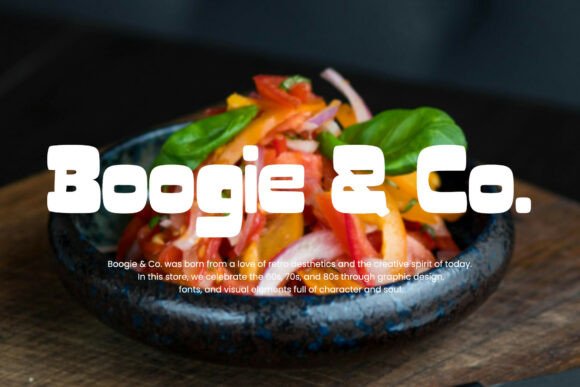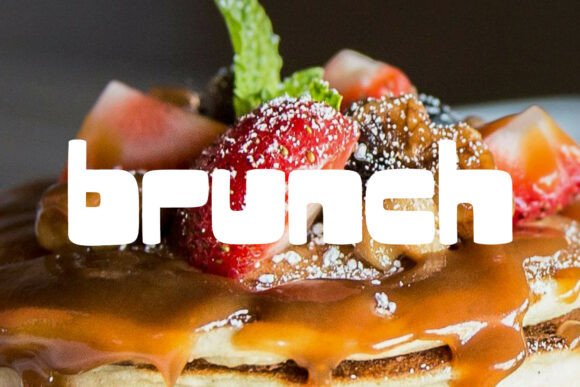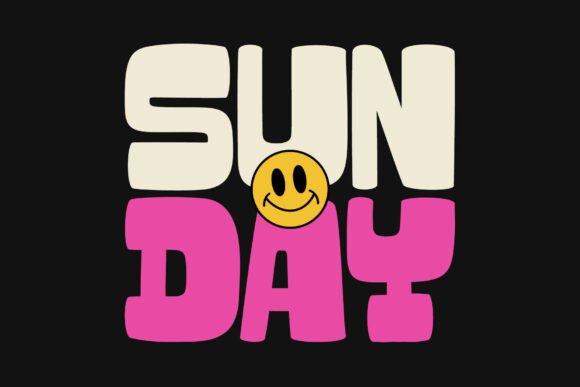
Introduction to Rigs Brone Font
As designers, we’ve all been there – staring at a blank canvas, trying to bring a creative project to life. The spark of inspiration hits, and suddenly, you’re envisioning a bold, eye-catching design that screams for attention. For those moments when you need a design resource that exudes retro charm, look no further than the Rigs Brone Font.
This vintage-inspired typeface is a game-changer for designers, offering a modern twist on classic aesthetics from the 70s and 80s. With its strong curves and bold letterforms, Rigs Brone Font is perfect for branding, posters, headlines, packaging, and more. Whether you’re working on a music, fashion, editorial, or lifestyle project, this font adds a warm, stylish, and timeless touch that’s sure to captivate your audience.
Rigs Brone Font
- Features a unique, modern design that sets it apart from other fonts.
Honest Review: Rigs Brone Font
As a designer, I’m always on the lookout for high-quality design resources that can elevate my creative projects. Recently, I stumbled upon the Rigs Brone Font, and I’m excited to share my honest review with you.
- ✨ The font is highly customizable, making it perfect for designers who like to experiment with different styles.
- ✨ The high-quality design ensures that the font looks great on both digital and print materials.
- ✨ The transparent background option makes it easy to integrate the font into any design project.
- ⚠️ The font may not be suitable for very small text sizes, as it can become difficult to read.
- ⚠️ Some users may find the font’s unique style to be overwhelming or distracting in certain contexts.
Overall, I’m impressed with the Rigs Brone Font’s potential to add a creative touch to my design projects. While it may not be perfect for every use case, it’s definitely a valuable addition to my design resource library. Plus, the free download option is a bonus! If you’re looking for a unique and high-quality font, I’d definitely recommend checking out the Rigs Brone Font.
Tips for Getting the Most Out of Rigs Brone Font
To maximize the effectiveness of the Rigs Brone Font, use it in creative projects that require a unique and eye-catching design. Experiment with different font sizes, colors, and combinations to achieve the desired look.
Rigs Brone Font is ideal for use in logos, branding materials, and marketing campaigns. Its unique design makes it perfect for creative projects that require a bold and attention-grabbing look. You can also use it to create eye-catching headings and titles in your designs.